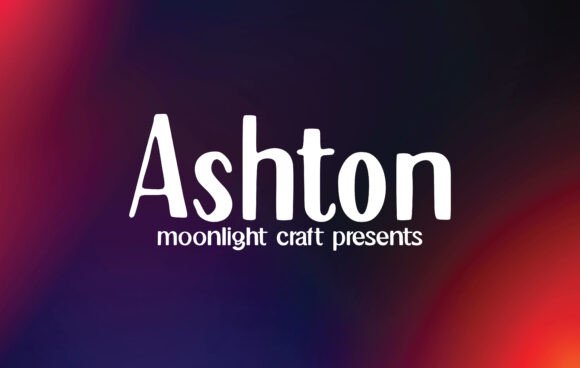
Ashton Font: Elevate Your Creative Ideas with this Lovely Handwritten Font
In the world of typography, fonts play a crucial role in bringing creative ideas to life. Among the numerous fonts available, the Ashton Font stands out for its unique charm and versatility. This article will delve into the features and benefits of the Ashton Font, exploring how it can help take your creative projects to new heights.
What is Ashton Font?
Ashton is a lovely and beautiful handwritten font that exudes elegance and sophistication. Its distinctive style makes it an excellent choice for various design applications, from logos and branding to quotes and creative writing projects. The Ashton Font has the potential to add a touch of personality and whimsy to any design, setting it apart from more traditional fonts.
Key Features of Ashton Font
- Handwritten style: The Ashton Font boasts a beautiful, handwritten appearance that adds a personal touch to any design.
- Unique character set: The font features a unique set of characters, ensuring that your designs stand out from the crowd.
- Elegant and sophisticated: The Ashton Font’s elegant and sophisticated style makes it suitable for a wide range of design applications.
- Highly versatile: The font can be used for various design projects, from logos and branding to quotes and creative writing.
Uses and Applications of Ashton Font
The Ashton Font is an incredibly versatile font that can be used for a wide range of design applications. Some of the most popular uses include:
- Logo design: The Ashton Font’s unique style makes it an excellent choice for creating eye-catching logos that stand out.
- Branding: The font’s elegant and sophisticated appearance makes it suitable for branding projects, helping to establish a strong visual identity.
- Quotes and typography: The Ashton Font’s beautiful handwritten style makes it perfect for creating stunning quotes and typography projects.
- Creative writing and publishing: The font’s unique character set and elegant appearance make it an excellent choice for creative writing and publishing projects.
Benefits of Using Ashton Font
The Ashton Font offers numerous benefits for designers and creative professionals. Some of the most significant advantages include:
- Improved visual appeal: The Ashton Font’s unique style and elegant appearance can significantly enhance the visual appeal of your designs.
- Increased creativity: The font’s distinctive character set and handwritten style can inspire creativity and help you think outside the box.
- Enhanced professionalism: The Ashton Font’s sophisticated appearance can help establish a strong visual identity and enhance your professional image.
- Versatility: The font’s highly versatile nature makes it suitable for a wide range of design applications.
Tips and Tricks for Using Ashton Font
To get the most out of the Ashton Font, consider the following tips and tricks:
- Experiment with different colors: The Ashton Font looks stunning in a variety of colors, so don’t be afraid to experiment and find the perfect hue for your design.
- Mix and match with other fonts: The Ashton Font pairs well with other fonts, so try combining it with different styles to create a unique look.
- Pay attention to spacing and kerning: Make sure to adjust the spacing and kerning to ensure that your text is easy to read and visually appealing.
- Use it for headlines and titles: The Ashton Font’s elegant appearance makes it perfect for headlines and titles, adding a touch of sophistication to your designs.
In conclusion, the Ashton Font is a beautiful and versatile handwritten font that can elevate your creative ideas to new heights. Its unique style, elegant appearance, and highly versatile nature make it an excellent choice for a wide range of design applications. Whether you’re a designer, creative professional, or simply looking for a new font to add to your collection, the Ashton Font is definitely worth considering.